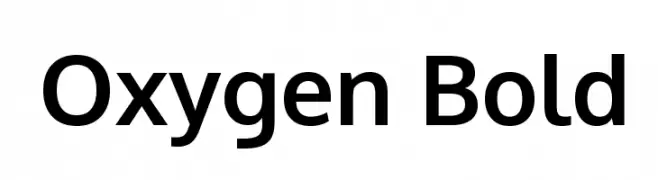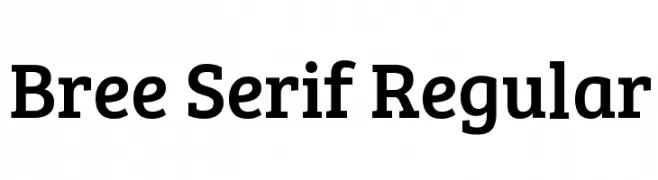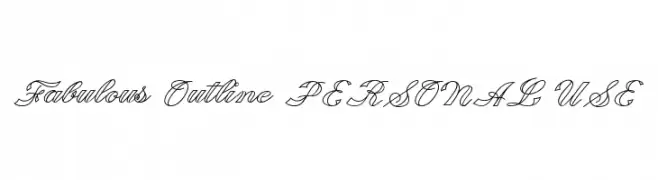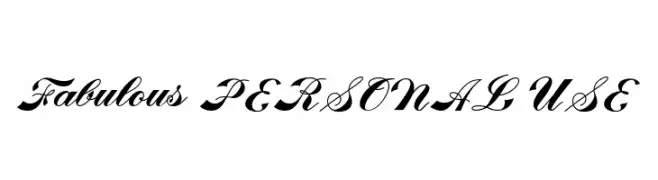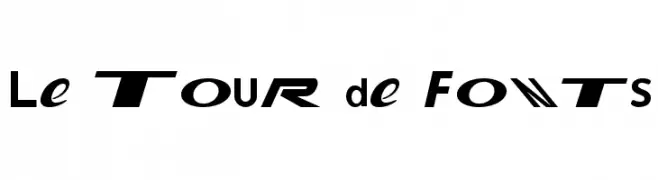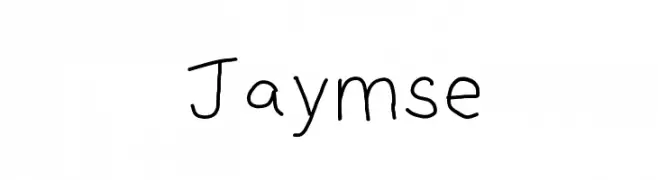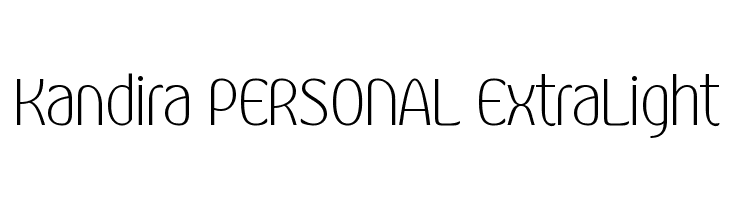
A bold, modern sans-serif font with geometric shapes and uniform stroke width.
A modern serif font with strong, confident letterforms and balanced weight.
An elegant outline script font with flowing, interconnected characters.
An elegant script font with flowing, cursive letterforms and decorative flourishes.
A bold, italicized font with a futuristic and dynamic style.
A playful, informal handwritten font with a lively and dynamic style.
A bold, modern sans-serif font with smooth, rounded edges and consistent character spacing.
A bold, italic font with a modern and dynamic style.
A sleek, modern font with elongated, narrow characters and a minimalist design.
A modern, italicized font with smooth curves and a sleek design.